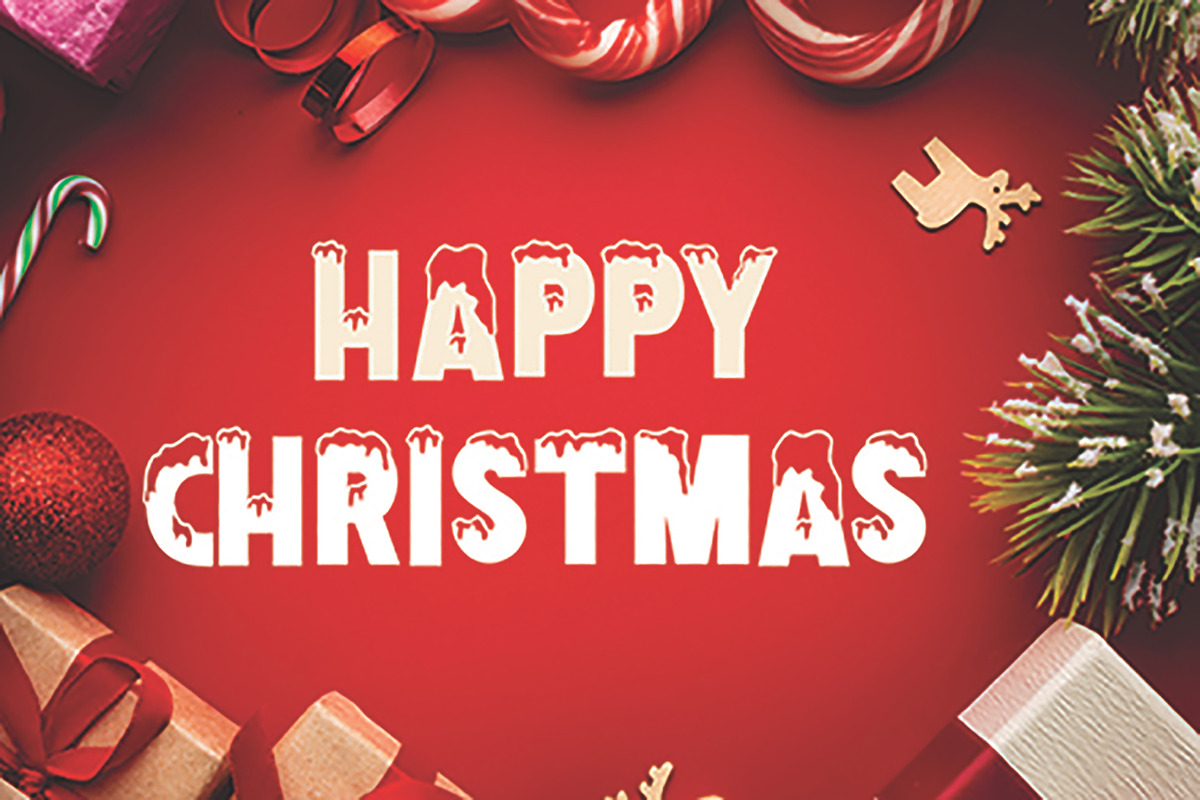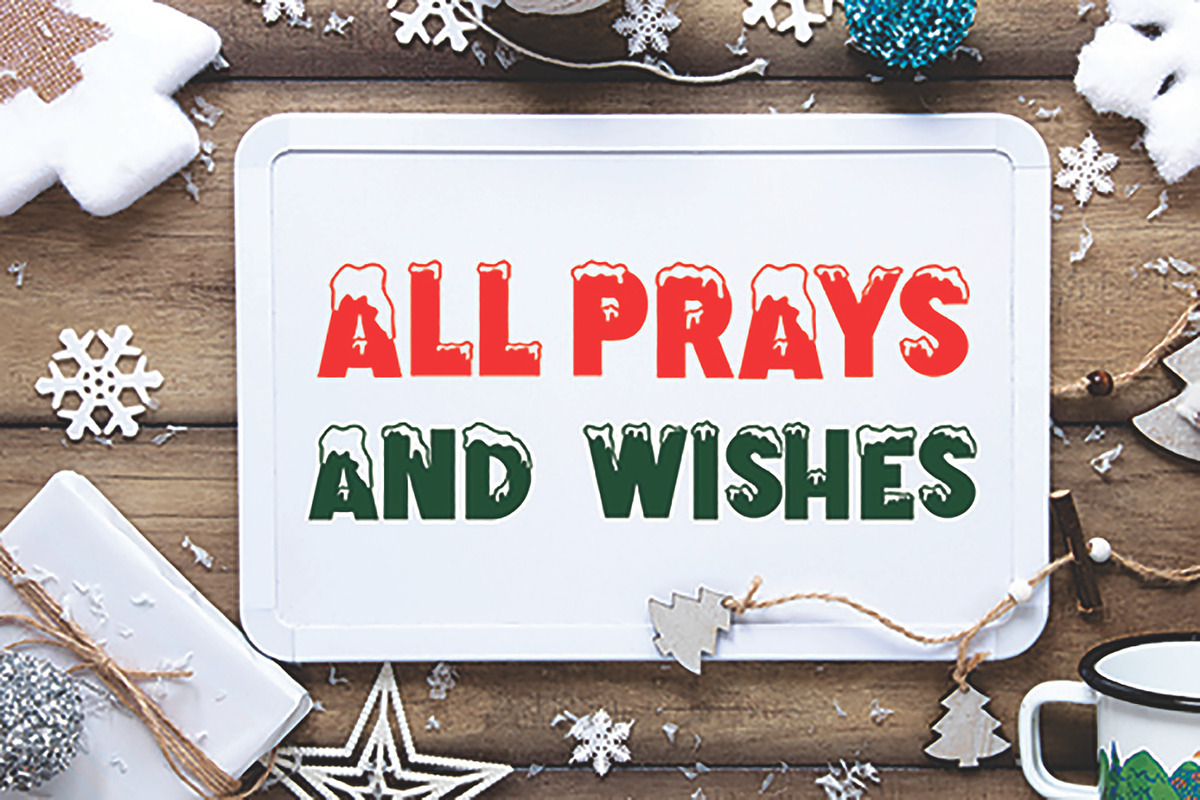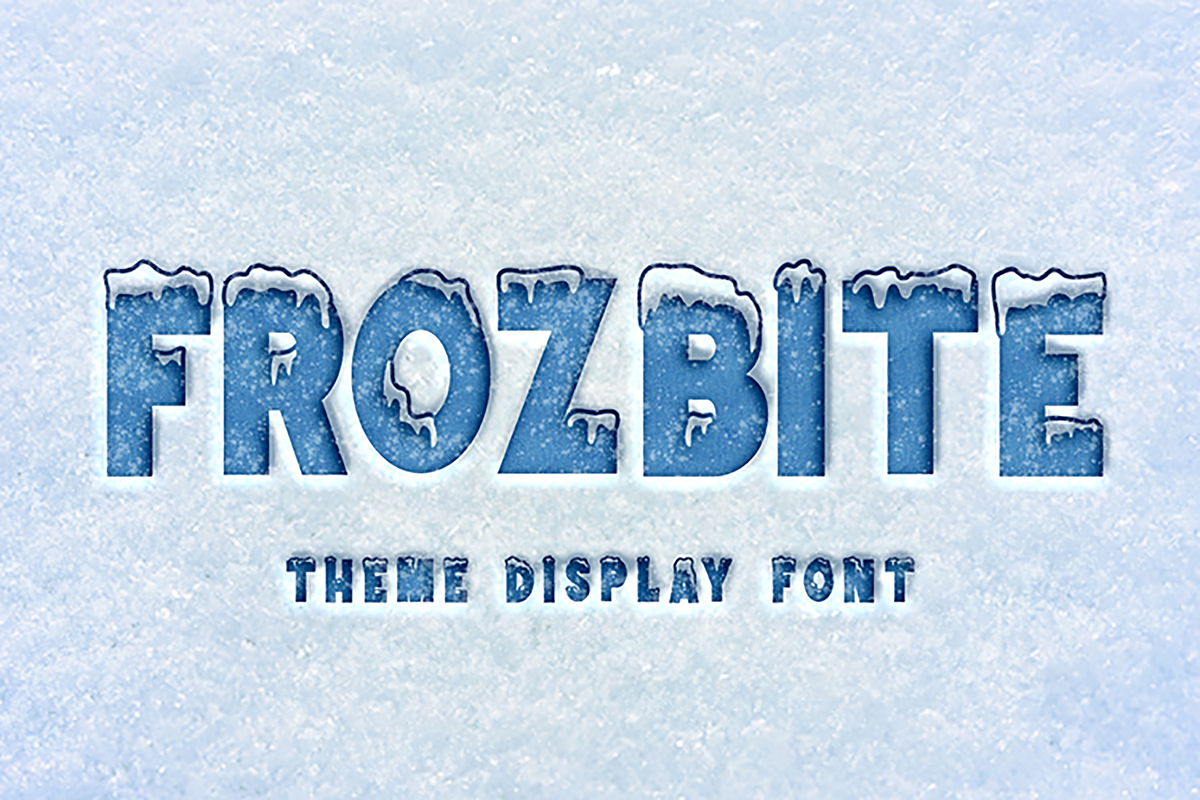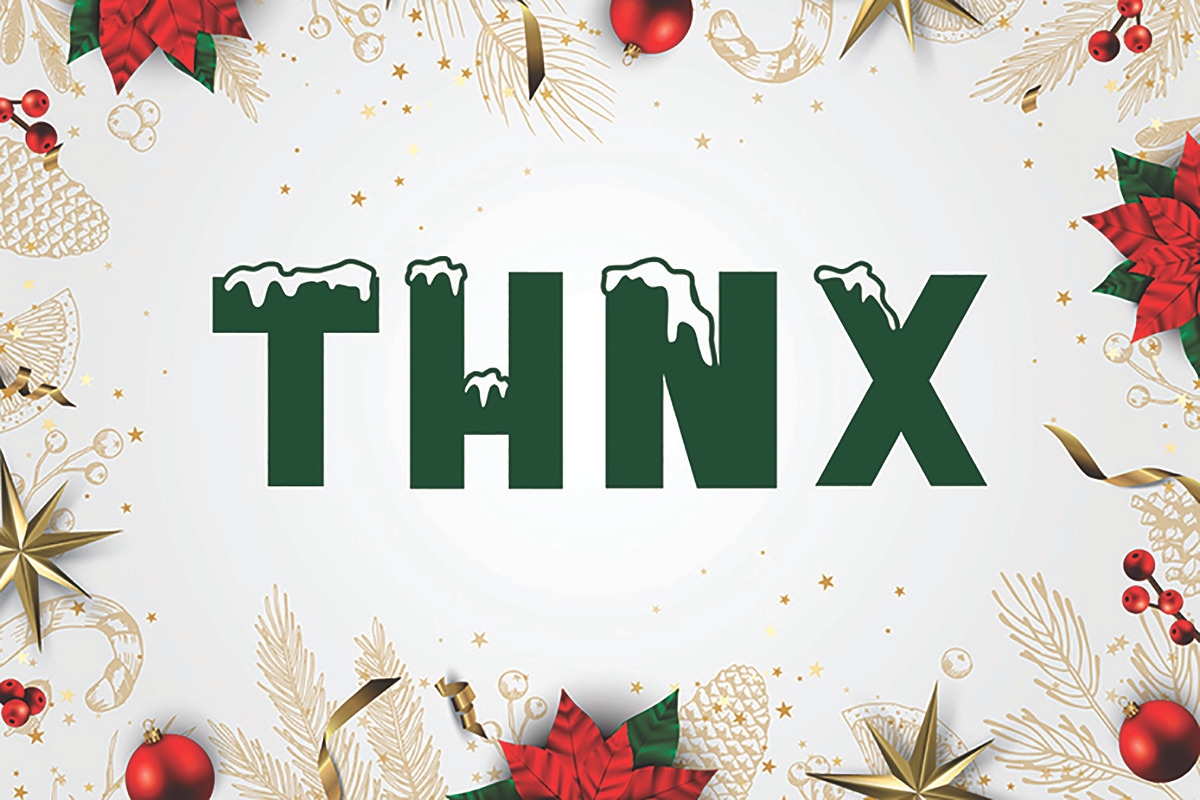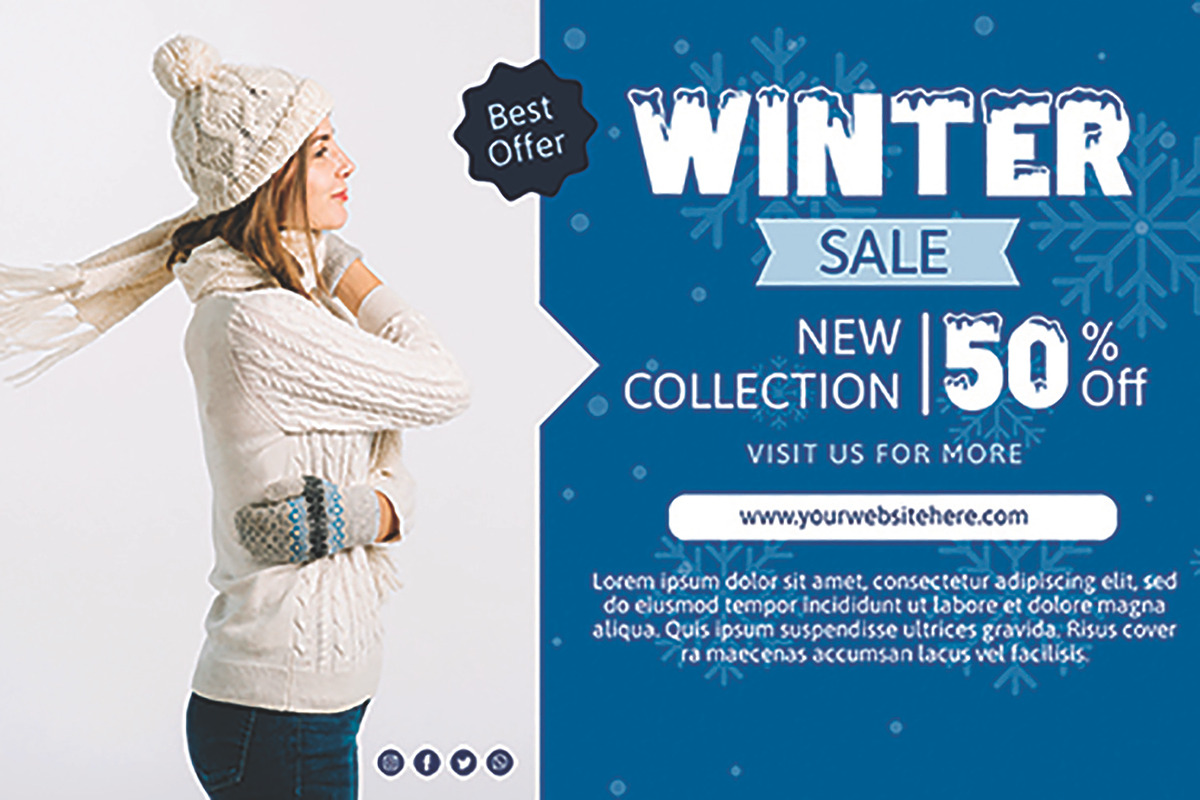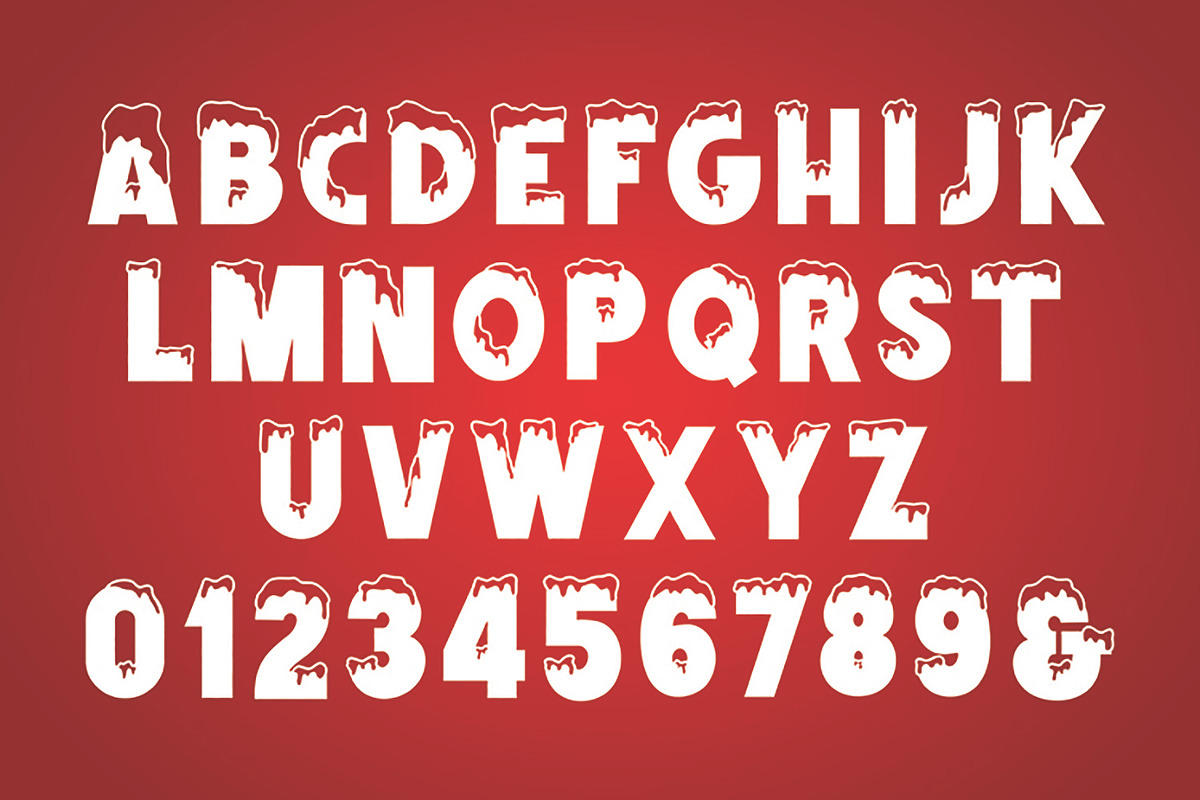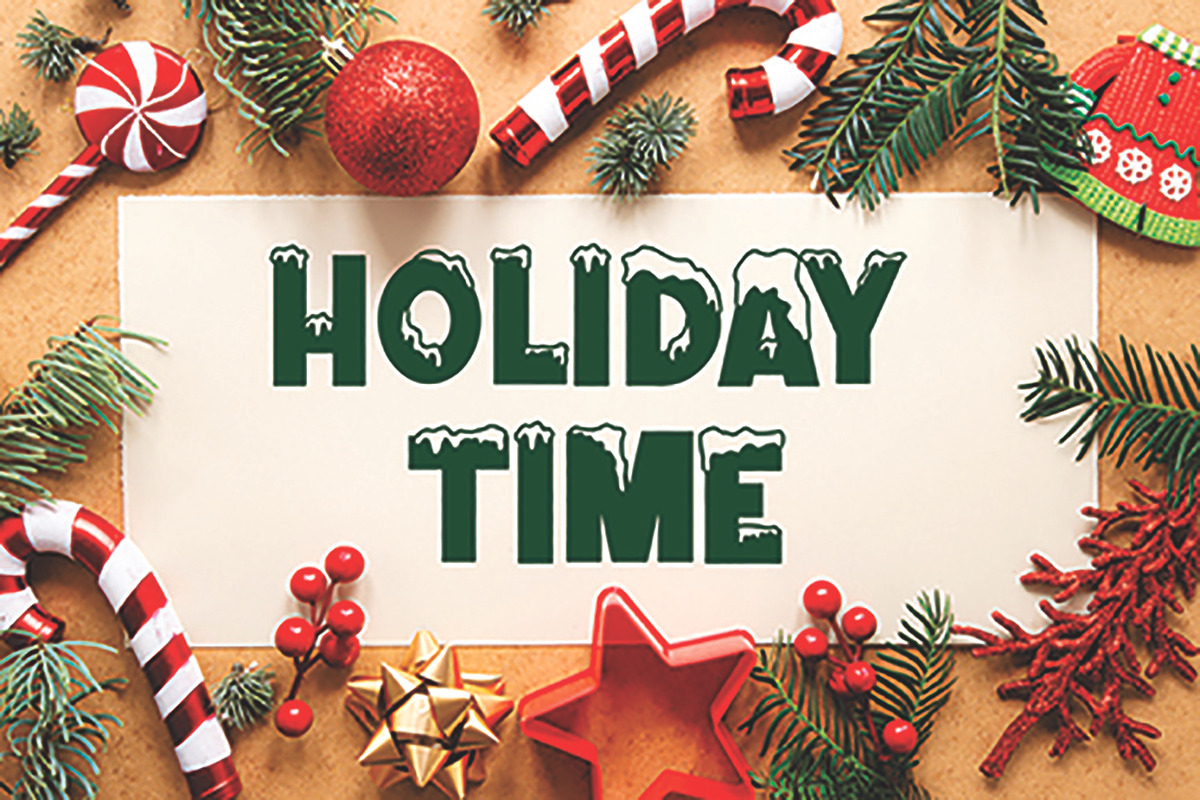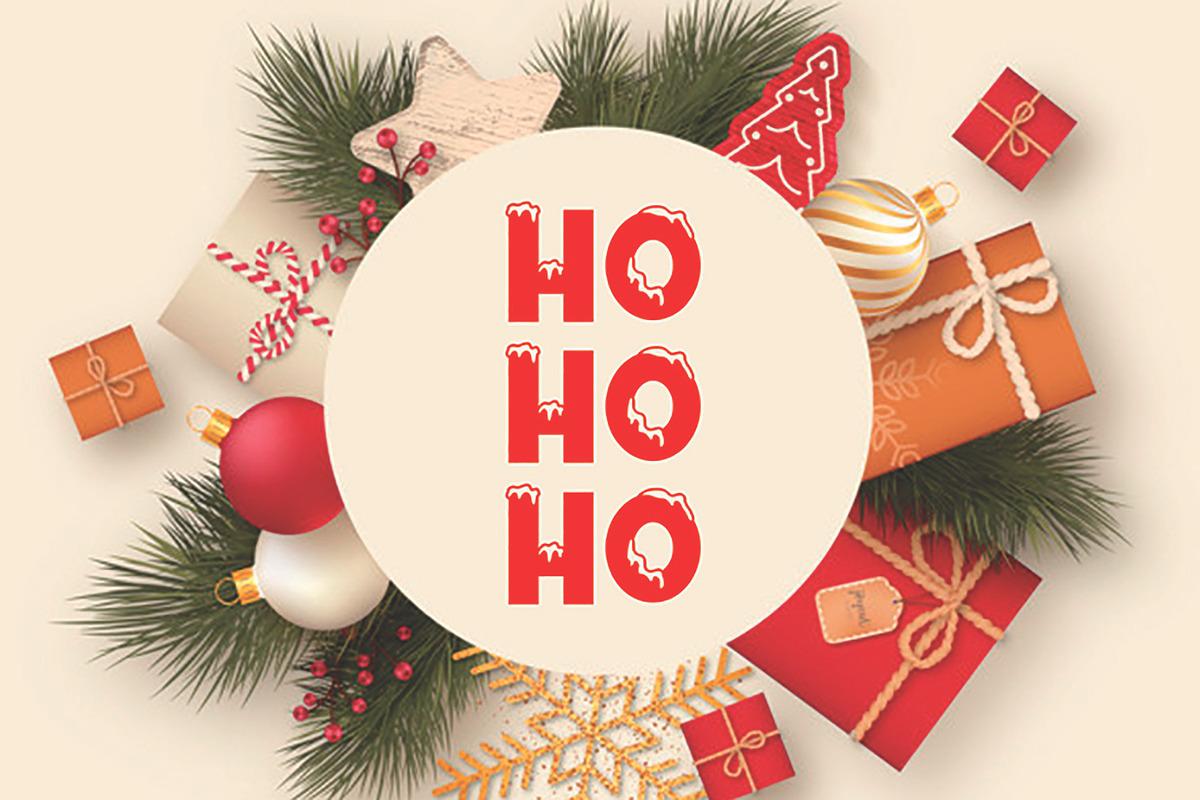
FROZBITE
Proudly presenting our new font.
It’s name FROZBITE. FROZBITE is modern display font. It is a bold decorative font perfect for your celebration parties like Halloween, Christmas or New Year.
FROZBITE would be perfect for Titles for kid`s book, scrapbook, logo, icon, phrases or quotes for winter greeting cards ( Halloween, Christmas or New Year holidays), photo overlay, short phrases, children’s book, gift shops tag, presentation in social media Pinterest, Instagram, Facebook or others.